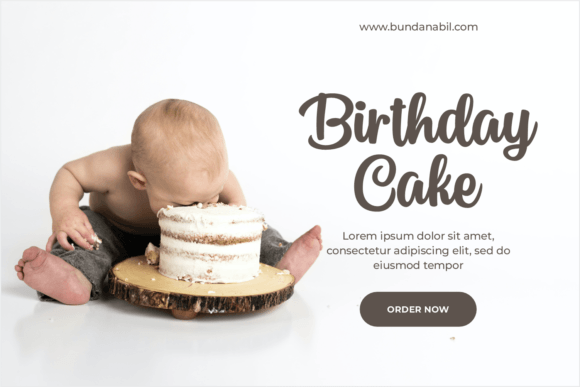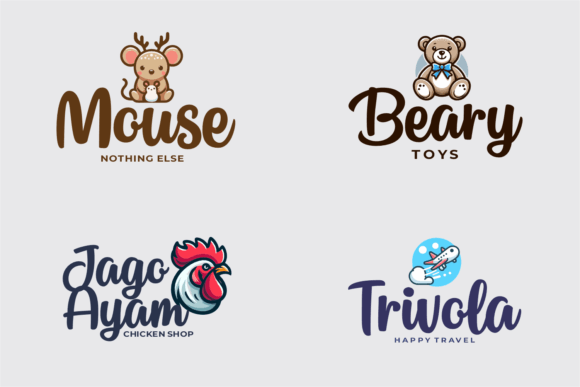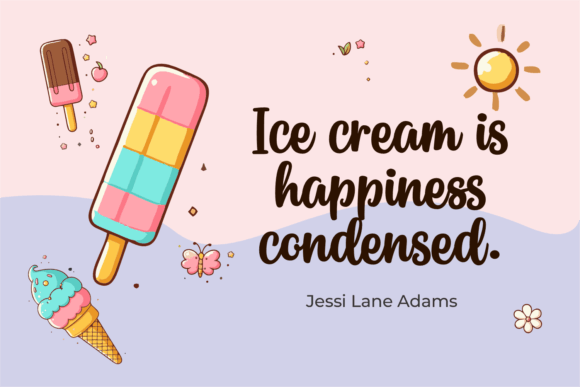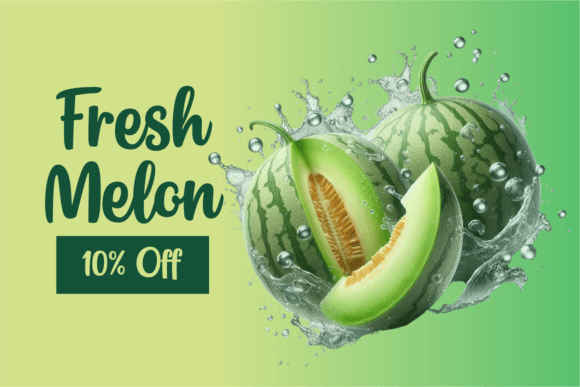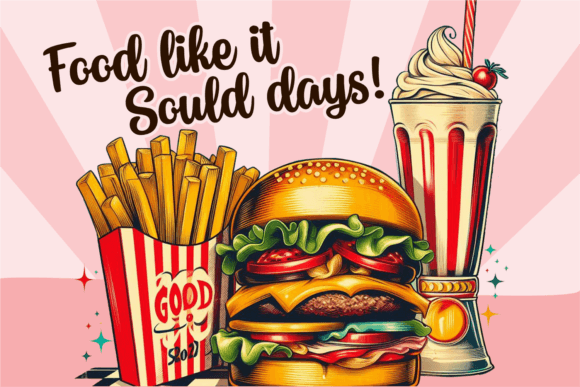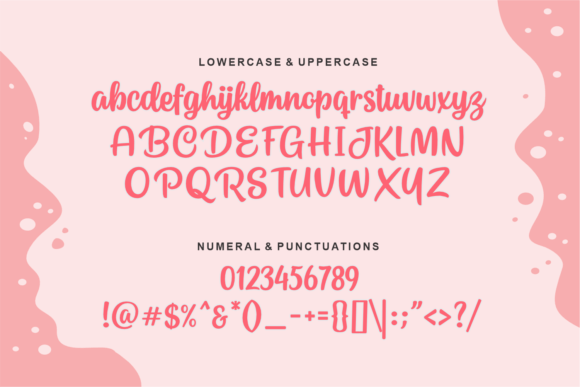
Introducing Configon Font: The Cute and Fresh Handwritten Brush Typeface
Are you tired of using the same old fonts for your design projects? Look no further! Configon Font is a beautiful, handwritten brush typeface that is sure to add a touch of cuteness and freshness to your designs. In this article, we’ll dive into the world of Configon Font and explore its features, uses, and benefits for designers and crafters.
What is Configon Font?
Configon Font is a carefully crafted, handwritten brush typeface made with love. Its unique and playful design makes it perfect for a wide range of design projects, from branding and logos to wedding designs and social media posts. The font’s cute and adorable appearance is sure to capture the attention of your audience and leave a lasting impression.
Features of Configon Font
Configon Font boasts a range of features that make it an ideal choice for designers and crafters. Some of its key features include:
- Handwritten brush typeface: Configon Font has a unique, handwritten look that adds a personal touch to your designs.
- Cute and fresh design: The font’s playful and adorable design makes it perfect for projects that require a touch of whimsy and fun.
- Versatile: Configon Font can be used for a wide range of design projects, from branding and logos to wedding designs and social media posts.
- Easy to read: Despite its playful design, Configon Font is easy to read and understand, making it perfect for body text and headlines.
Uses of Configon Font
Configon Font is perfect for a wide range of design projects, including:
- Branding projects: Use Configon Font to create a unique and memorable brand identity that stands out from the crowd.
- Logos: The font’s cute and fresh design makes it perfect for logos that require a touch of personality.
- Wedding designs: Configon Font is perfect for wedding invitations, stationery, and other wedding-related designs.
- Social media posts: Use Configon Font to add a touch of personality to your social media posts and make them stand out from the crowd.
- Advertisements: The font’s playful design makes it perfect for advertisements that require a touch of whimsy and fun.
- Product packaging: Configon Font can be used for product packaging, labels, and other product-related designs.
- Photography: Use Configon Font to add a touch of personality to your photography, including watermarks and photo captions.
- Invitations: The font’s cute and fresh design makes it perfect for invitations, including birthday invitations, graduation invitations, and more.
- Stationery: Configon Font can be used for stationery, including notebooks, journals, and other paper products.
Benefits of Using Configon Font
Using Configon Font offers a range of benefits for designers and crafters, including:
- Unique and memorable designs: Configon Font’s unique and playful design makes it perfect for creating unique and memorable designs.
- Increased creativity: The font’s playful design and versatility can help increase creativity and inspire new design ideas.
In conclusion, Configon Font is a beautiful, handwritten brush typeface that is perfect for designers and crafters looking to add a touch of cuteness and freshness to their designs. Its unique and playful design, versatility, and ease of use make it a valuable addition to any design project. Whether you’re working on branding projects, logos, wedding designs, or social media posts, Configon Font is sure to impress.